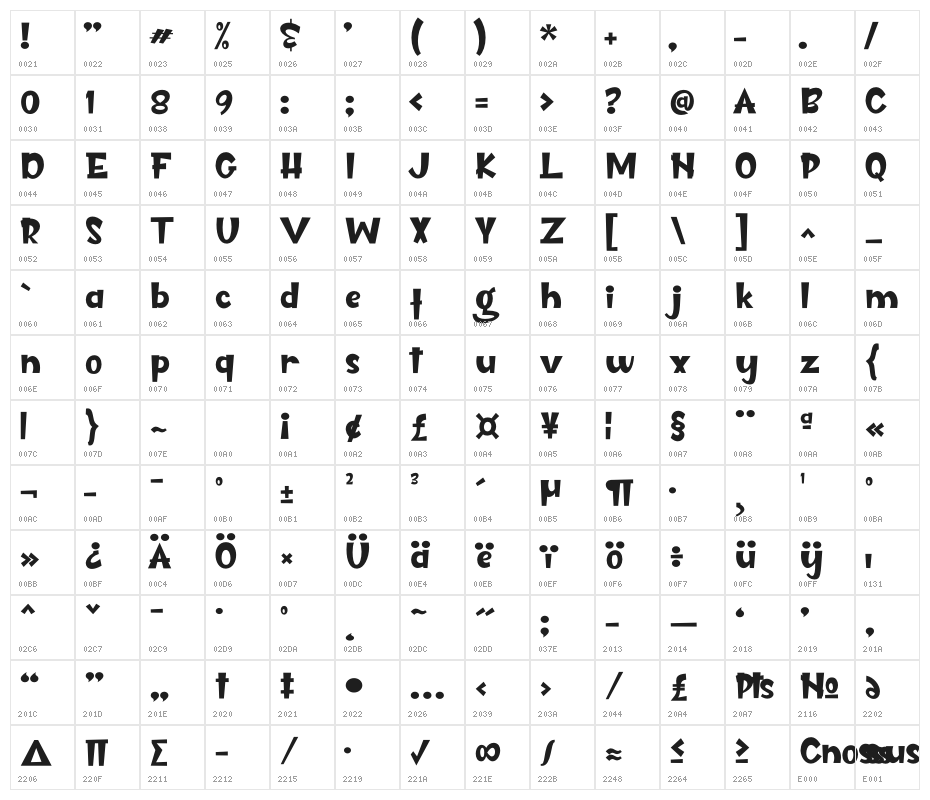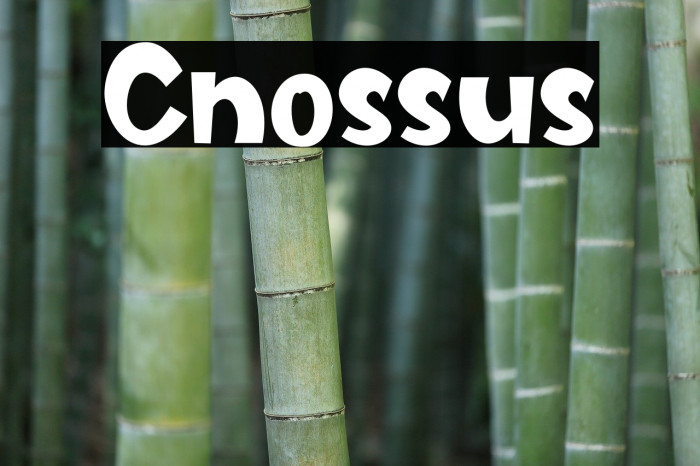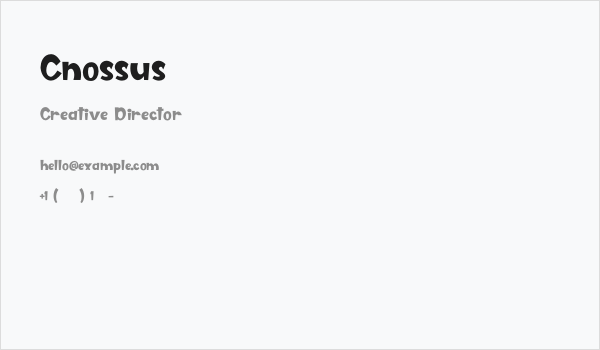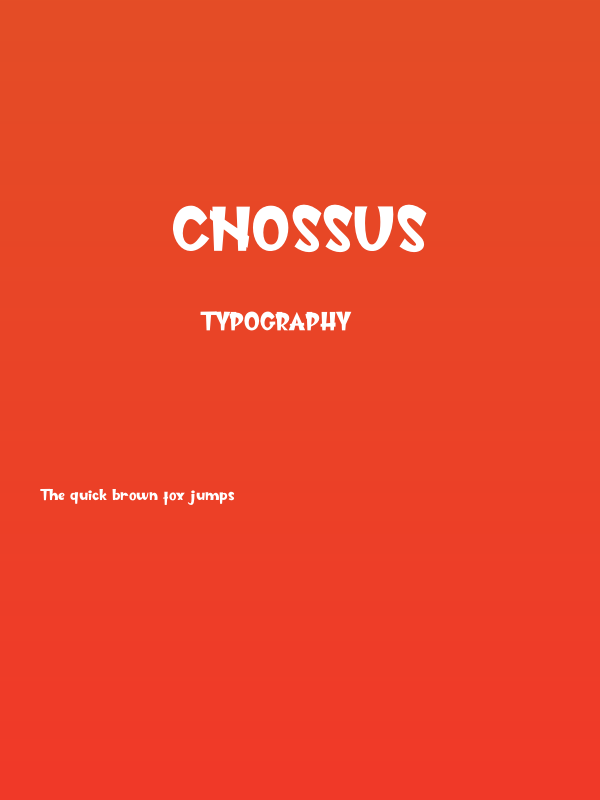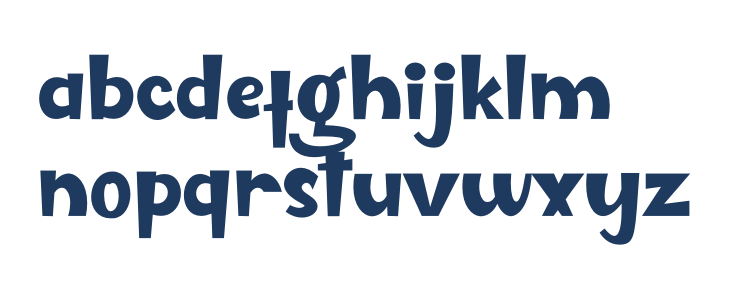
Cnossus Font
Cnossus Description
This font features a bold and playful design with a distinctive, slightly irregular shape that gives it a whimsical and artistic feel. The uppercase letters are characterized by thick strokes and unique angles, while the lowercase letters maintain a consistent style with rounded edges and a slightly condensed form. The numerals are bold and easily legible, matching the overall aesthetic of the font. Special characters are creatively designed, adding to the font's decorative appeal. This font is ideal for projects that require a fun and engaging look, such as children's books, posters, and creative branding.
| Proposed Projects | Ideal for children's books, posters, creative branding, and playful designs. |